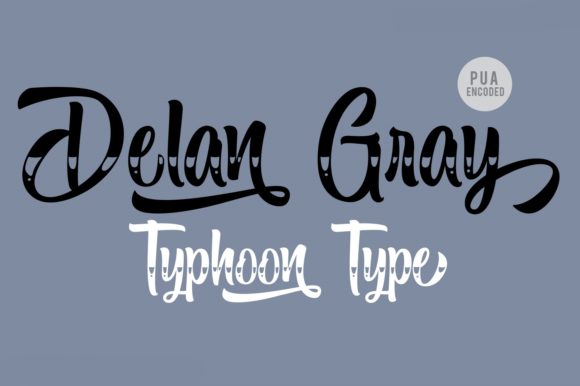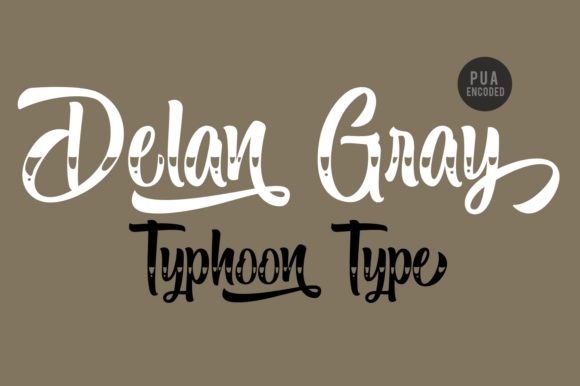
Delan Gray Font
About Delan Gray Font
Delan Gray is a beautiful flowing handwritten font with a stylish appeal. It will add a wonderful touch to any crafting project.